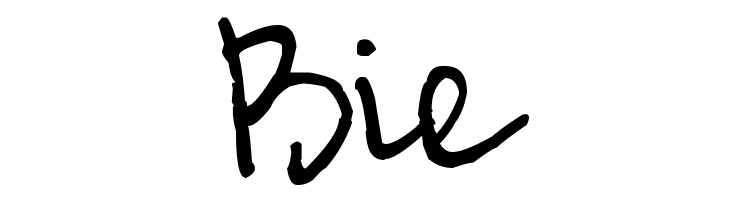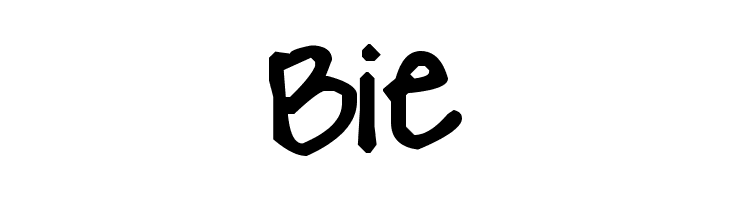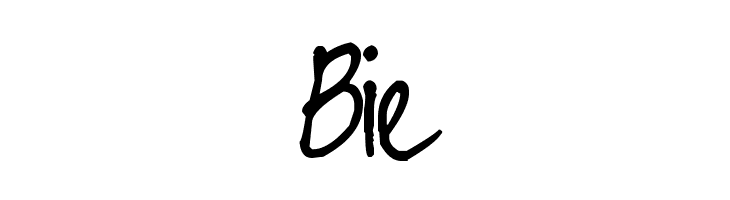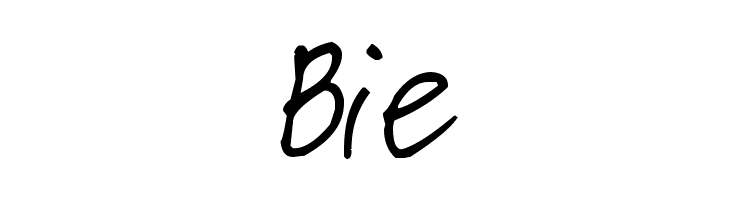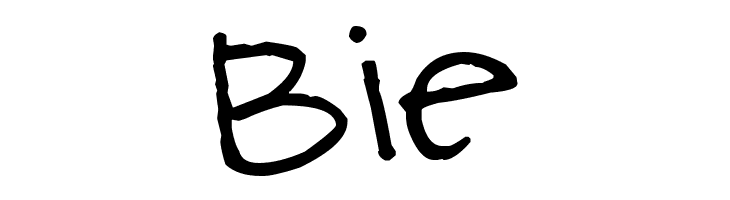
• Pea Elizabeth
A playful, casual handwritten font with a relaxed and friendly style.
• Pea Emily
• Pea Friend
A bold, handwritten font with a playful and casual style.
• Pea Gemini Jen
A bold, playful handwritten font with a casual and expressive style.
• Pea Girly Girls Print
A lively handwritten font with a casual, dynamic style.
• Pea Girly Girls Script
A playful, casual handwritten script with fluid, connected letters and a personal touch.
• Pea Glo-Girl
A playful and casual handwritten font with bold, consistent strokes.
• Pea Glo-Girl Script
A playful, handwritten script font with bold, fluid strokes and a lively character.
• Pea Gretchie
A playful handwritten script font with flowing, connected letters and whimsical flair.
• Pea Gretchie Print
A playful, casual handwritten font with an organic flow and uneven strokes.